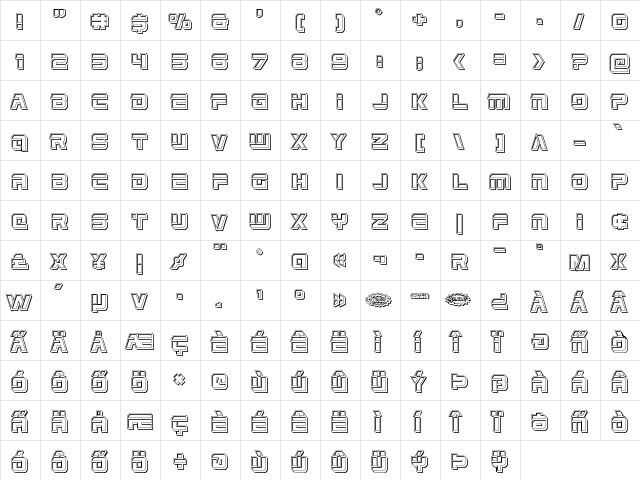
Edge Racer Engraved Regular
Design Context for Edge Racer Engraved Typeface
Edge Racer Engraved is built around its visual character rather than neutral utility — its distinctive forms are designed to make an impression at display sizes.
Font Pairing: Pair with a clean neutral sans-serif for body copy to let Edge Racer Engraved's character lead without overwhelming the composition.
Pro Tip: Treat Edge Racer Engraved as the centrepiece of your typographic hierarchy. One strong heading set in a decorative face can carry an entire layout.